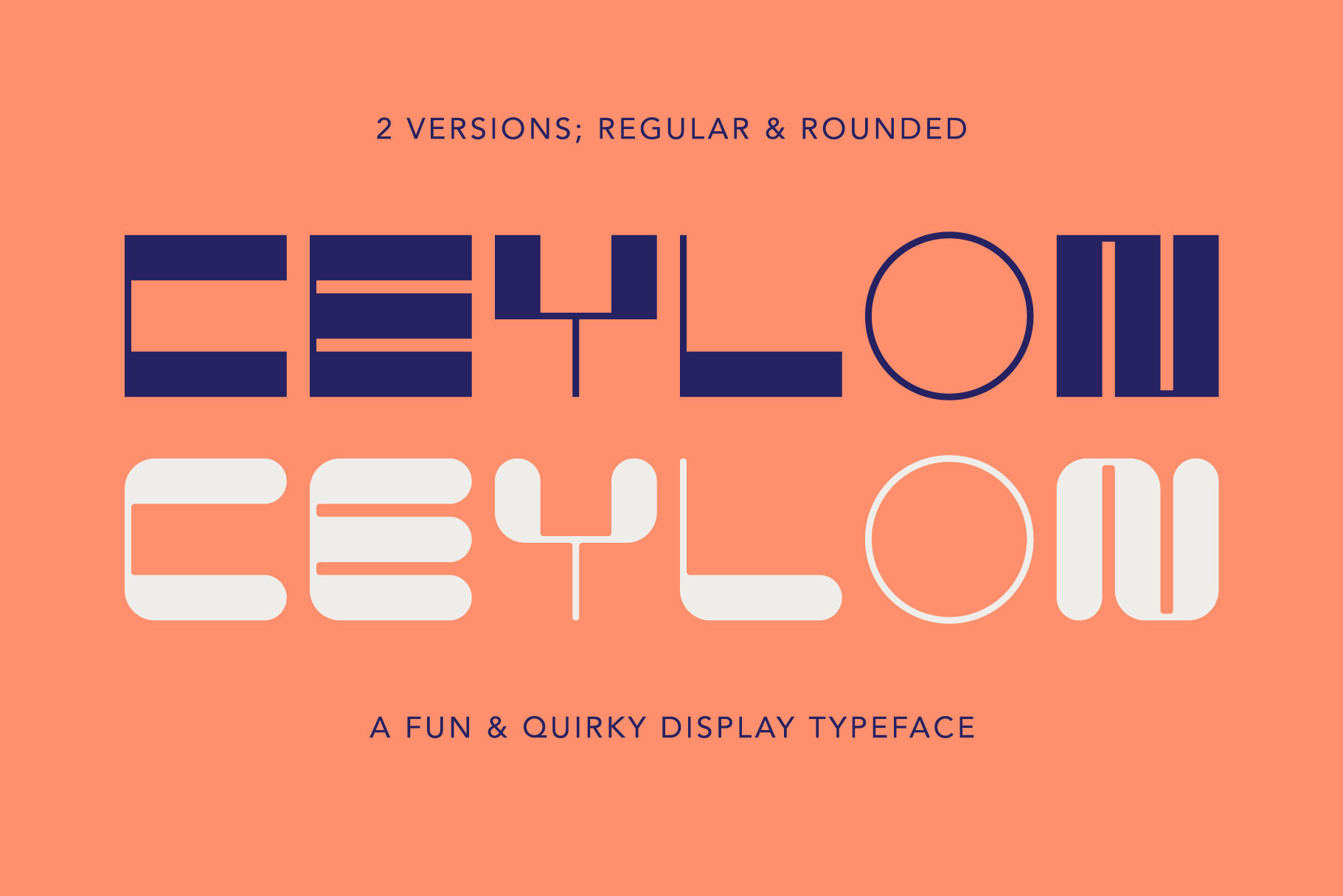
Ceylon - Quirky Display Font
CEYLON FONT DUO / Regular & Rounded
Ceylon is a fun and quirky display font duo that combines a regular and rounded version into one unique package. The two weights allow for flexible, yet consistent usage across high impact graphics and editorials.